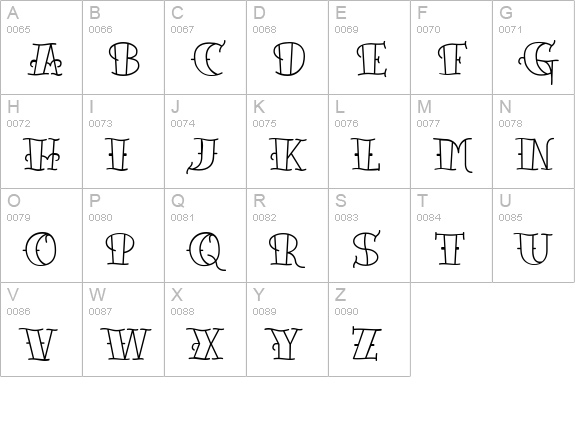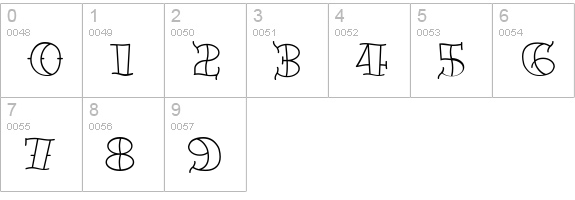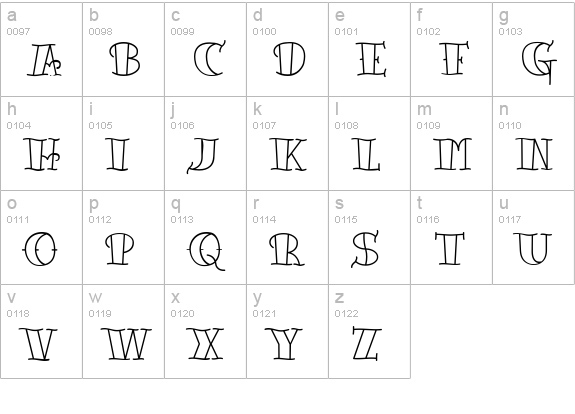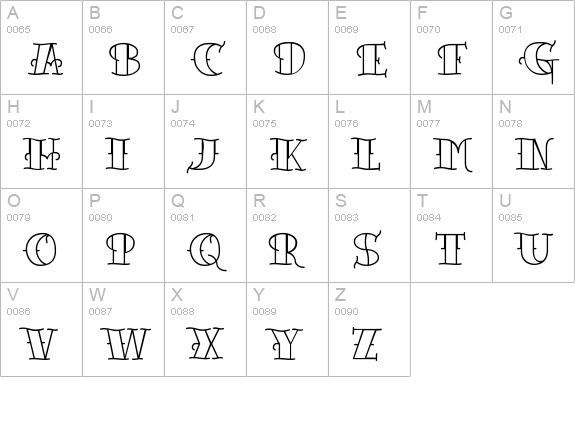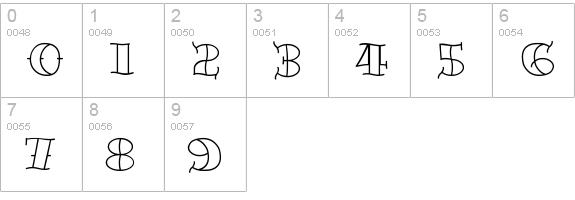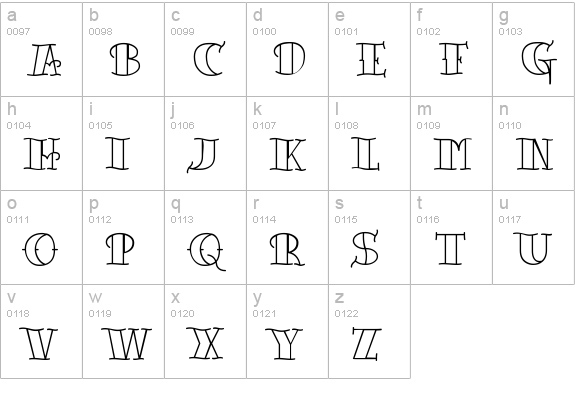
TattooLetteringOpen Font Details
TattooLetteringOpen font is a stunning display typeface that exudes a bold and edgy vibe, perfect for creating eye-catching designs with a touch of attitude. This unique font features intricate and ornate lettering that adds a touch of sophistication to any project. Whether you're designing a tattoo, poster, or logo, TattooLetteringOpen font is sure to make a statement. The best part? TattooLetteringOpen font is available for free download at FontsMarket.com, making it easily accessible for all designers and creatives looking to add a distinctive flair to their work. Don't miss out on the opportunity to elevate your designs with this one-of-a-kind font that is both stylish and versatile. Download TattooLetteringOpen font today and let your creativity shine!